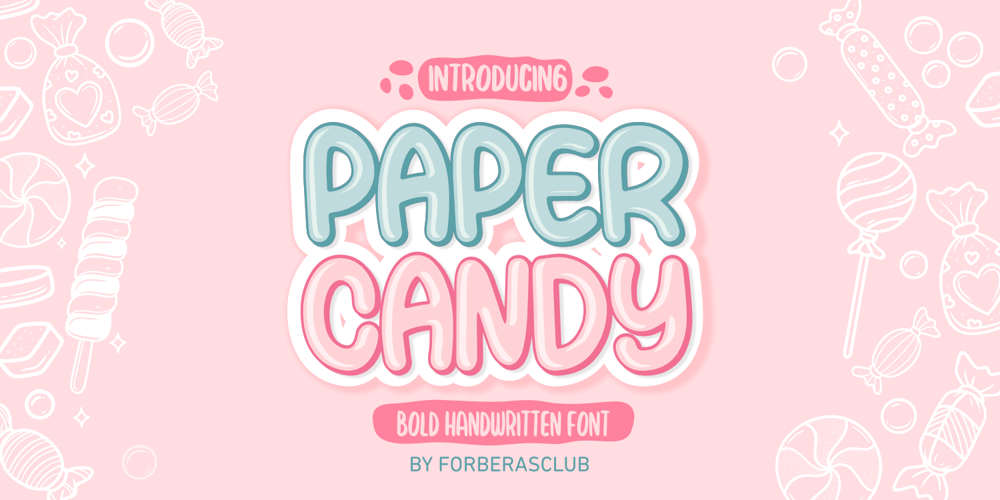
Paper Candy
Paper Candy font
Paper Candy Font Family was designed by ANGGI HERMAWAN and published by Forberas Club. Paper Candy contains 1 styles and family package options. Use this font for your party or cute moment. Do your magic ! 😀